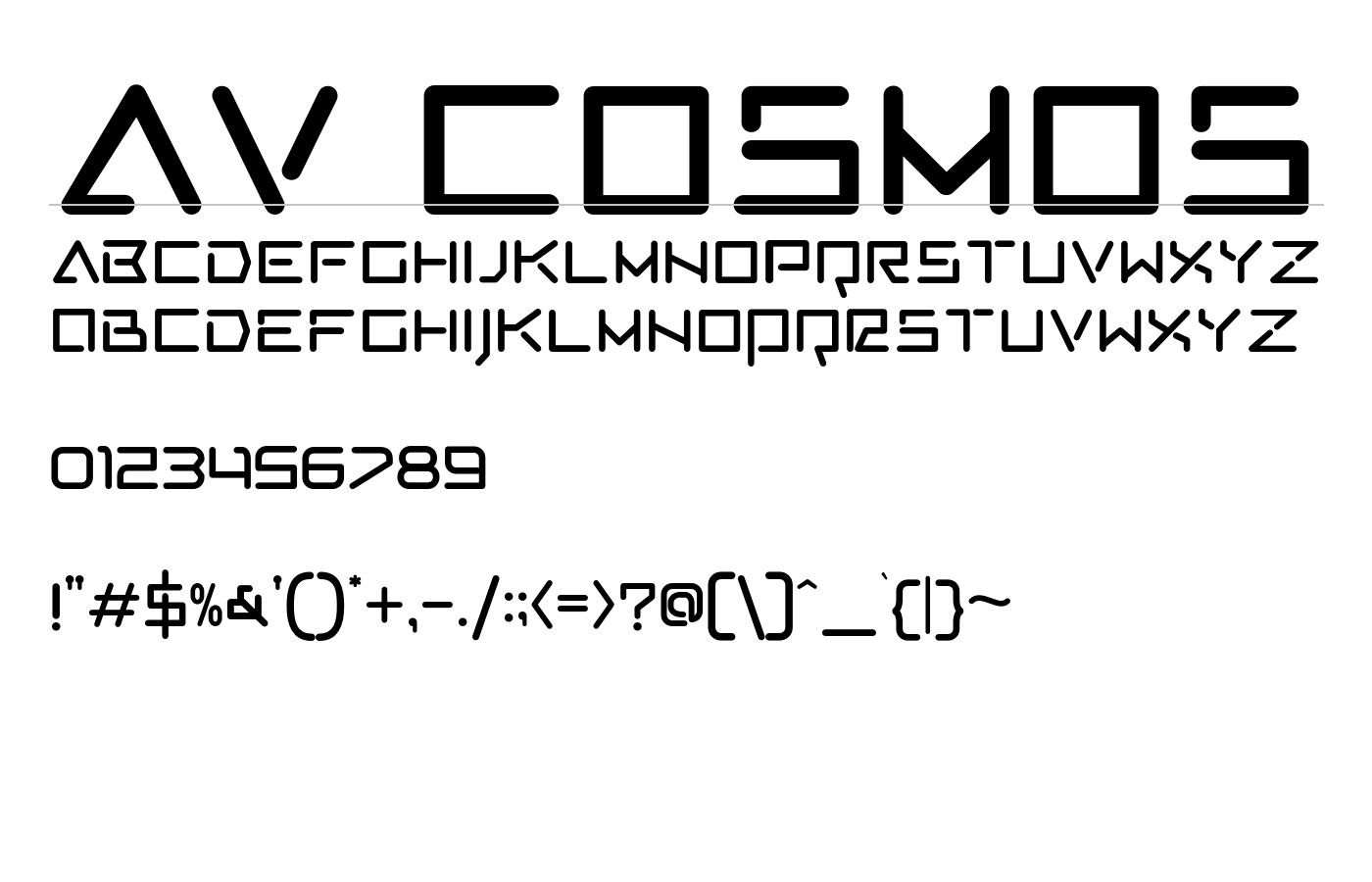
AV Cosmos is a futuristic sans serif font with a sleek, geometric style and medium weight. Its squared shapes, rounded corners, and consistent stroke widths create a modern, tech-inspired look that works well for digital branding, sci-fi projects, and editorial headlines. This font’s unique letterforms convey innovation and forward-thinking, making it ideal for logos and designs that aim to feel cutting-edge and dynamic.
AV Cosmos Font
About AV Cosmos Font